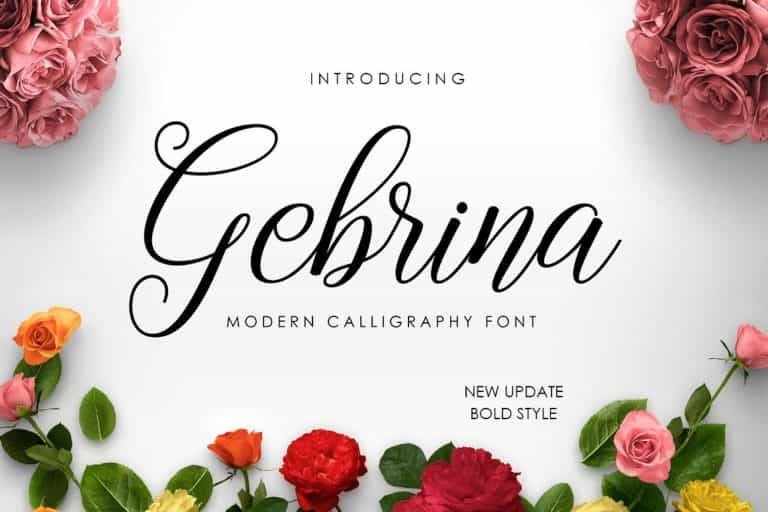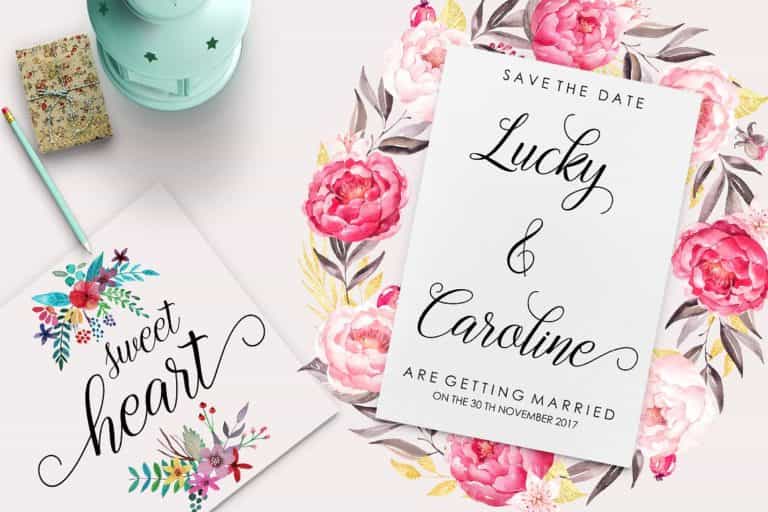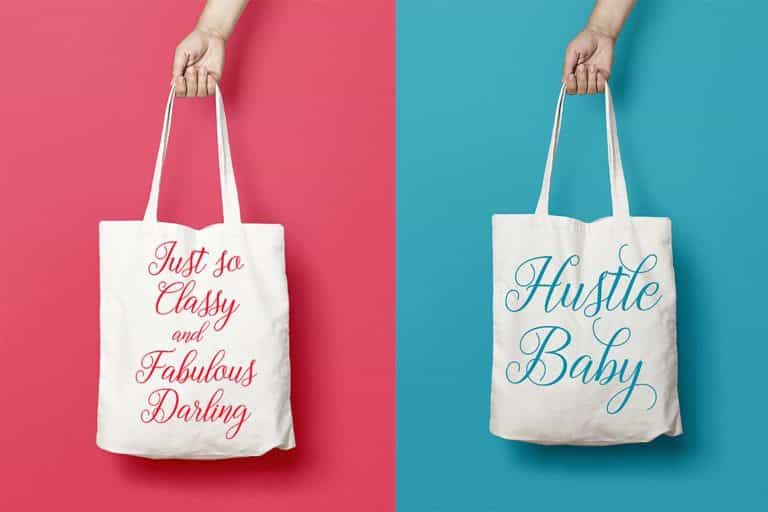
Introducing Gebrina Font! Gebrina Font is designed and shared by Megatype. Gebrina Script is a modern calligraphy typeface that contains Regular and Bold. This typeface is relaxed and nice with swashes. The Gebrina typeface can be used for many things such as the logo, product label, wedding invitation, branding, headline, signage, sticker, signature, book cover, and many more.. This is still a very nice, modern script typeface. Gebrina Script font family is completed with Regular and Bold style to give it the ability to present its own personal form.